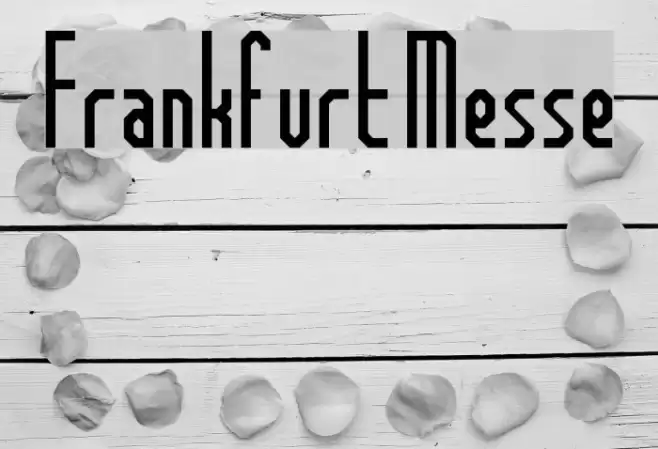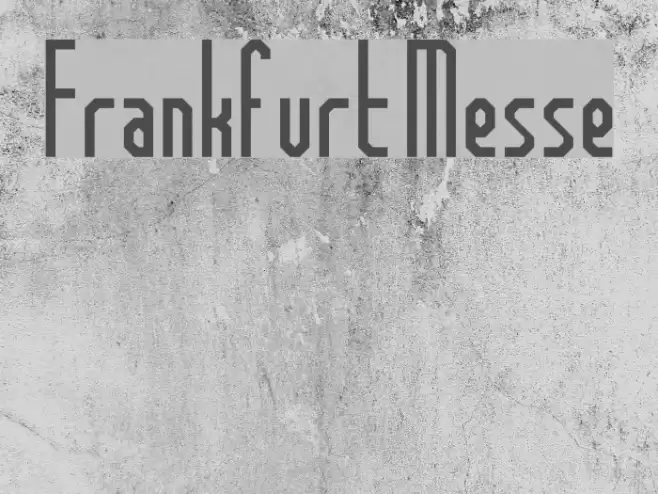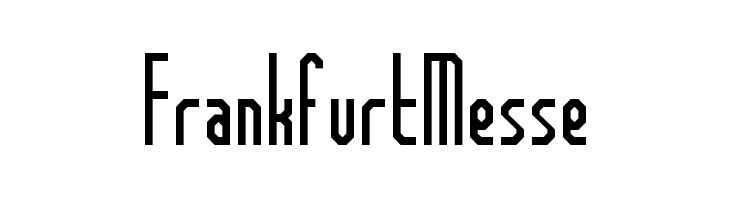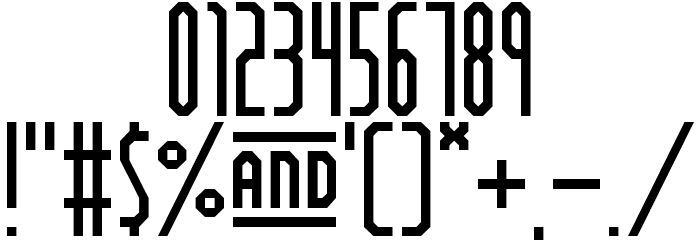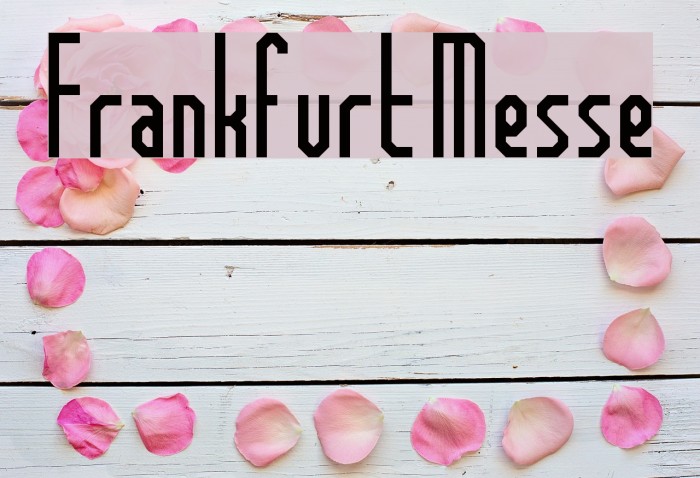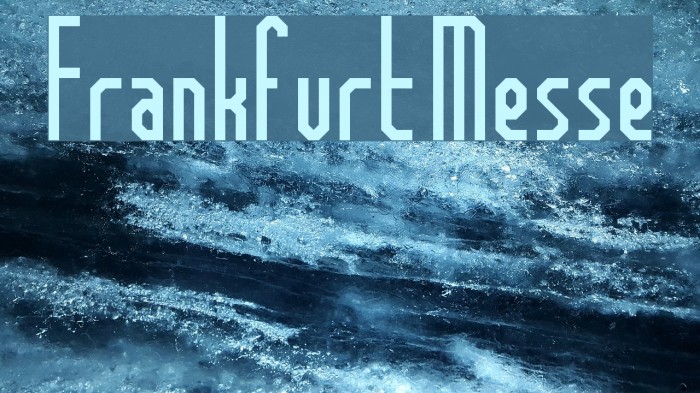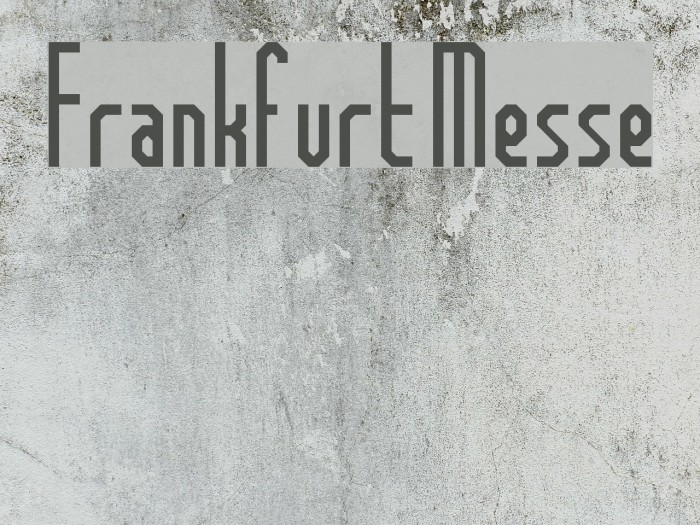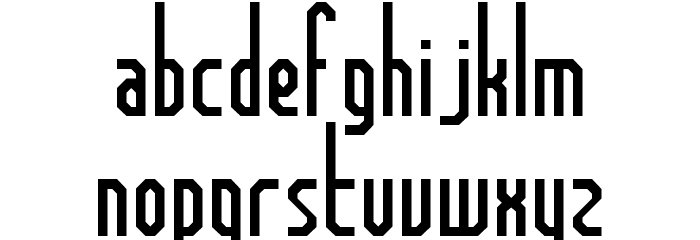
Frankfurt Messe Font
Frankfurt Messe Description
This font features a bold, geometric design with a modern and industrial feel. The characters are tall and narrow, with sharp angles and clean lines, giving it a distinctive and futuristic appearance. The uppercase and lowercase letters maintain a consistent height, contributing to a uniform look. The numerals and special characters follow the same design principles, ensuring cohesion across all elements. This font's unique style makes it suitable for projects that require a strong visual impact.
A bold, geometric font with a modern, industrial style from Uncategorized fonts.
- Proposed Projects: Ideal for branding, posters, signage, and any project that requires a modern, impactful typeface.